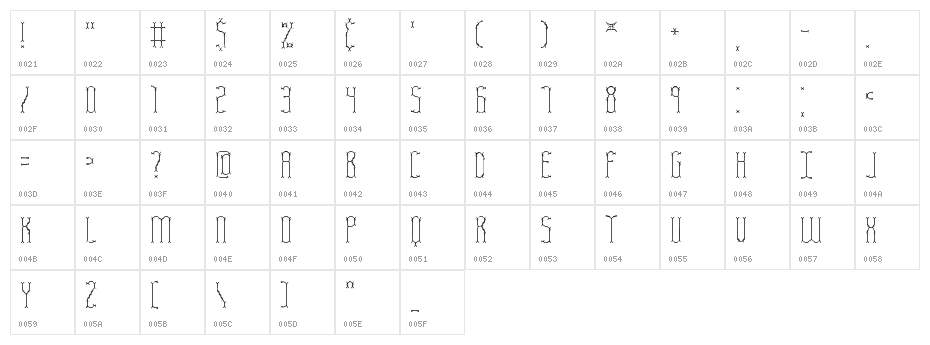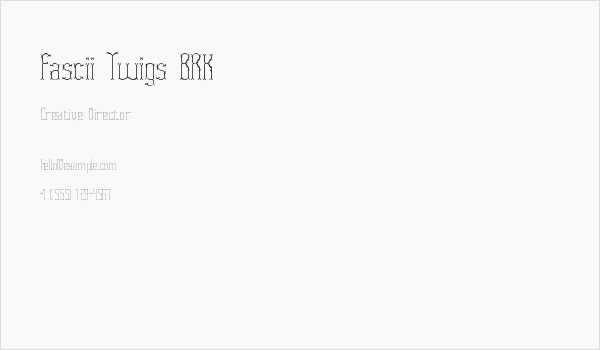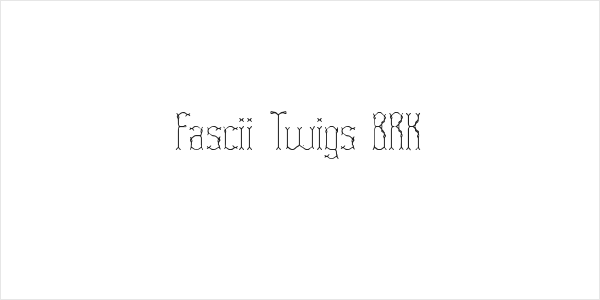
Fascii Twigs BRK Font
Fascii Twigs BRK Description
This font features a unique and decorative style, resembling twigs or branches. Each character is crafted with intricate details that mimic the natural, irregular shapes of wood, giving it an organic and whimsical appearance. The uppercase and lowercase letters maintain a consistent height, emphasizing the twig-like structure. Numbers and special characters follow the same design, ensuring a cohesive look across all glyphs. The font's distinctiveness makes it stand out, ideal for projects that require a natural or rustic theme.
| Proposed Projects | Ideal for nature-themed designs, eco-friendly branding, rustic wedding invitations, and artistic posters. |